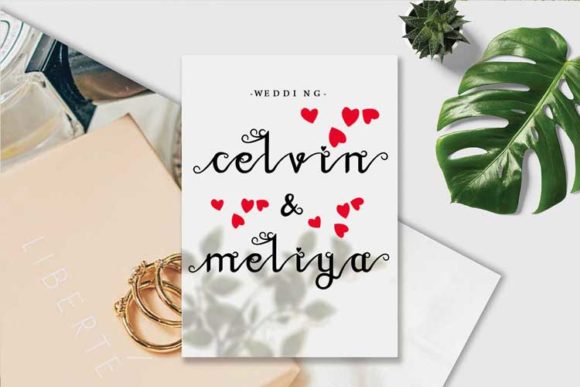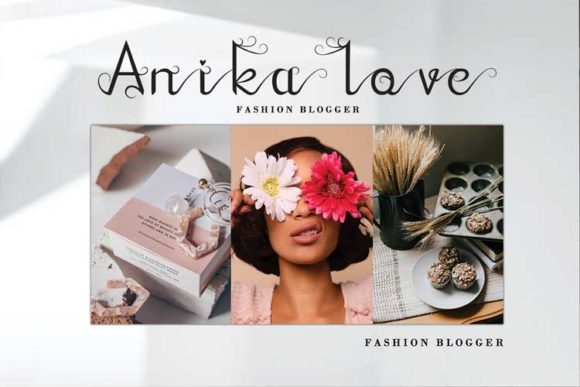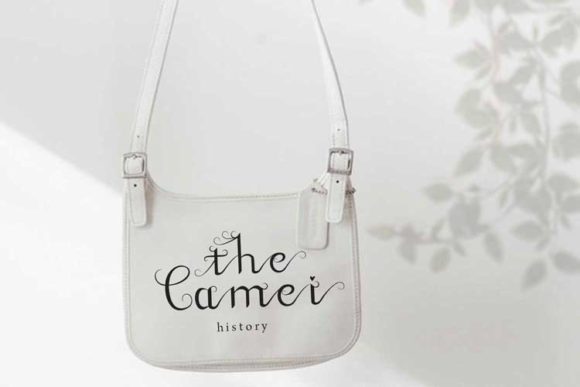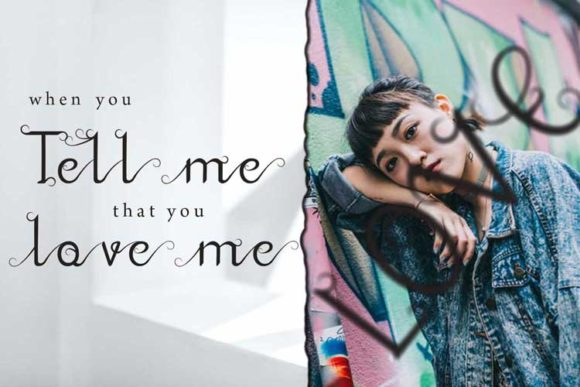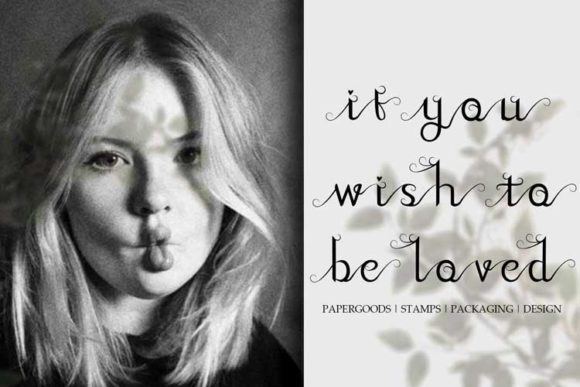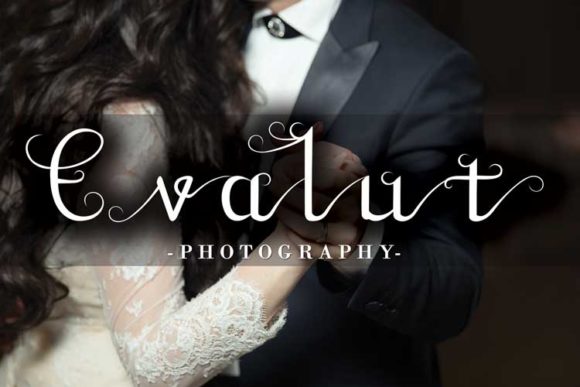
Introducing Alika Font: The Epitome of Modern Script Elegance
In the realm of typography, few fonts manage to strike a balance between classic elegance and modern flair. Alika Font is one such exceptional typeface that embodies the perfect blend of traditional calligraphic influences with a contemporary twist. This beautiful and modern script font is designed to elevate your projects to the highest levels of sophistication and style.
What Makes Alika Font Stand Out?
Alika Font boasts an impressive array of features that set it apart from other script fonts. With its extensive collection of alternative styles, ligatures, swashes, and glyphs, designers and crafters have the tools at their disposal to create truly unique and eye-catching projects. Whether you’re working on a branding campaign, a wedding invitation, or a packaging design, Alika Font provides the versatility and elegance needed to make your work shine.
Classy Calligraphic Influences Meet Modern Sophistication
At the heart of Alika Font lies a deep-rooted connection to traditional calligraphy. The font’s classy influences can be seen in its fluid strokes, elegant letterforms, and the way it seems to dance across the page. However, what truly sets Alika apart is its ability to feel contemporary and fresh, making it an ideal choice for designers looking to infuse their projects with a sense of modernity.
Key Features of Alika Font
- Alternative Styles: Alika Font comes with a variety of alternative styles, allowing designers to experiment with different looks and feels to find the perfect fit for their project.
- Ligatures and Swashes: The inclusion of ligatures and swashes adds a touch of sophistication and elegance, enabling designers to create beautiful, flowing text that captures the eye.
- Glyphs: With a comprehensive set of glyphs, Alika Font offers the flexibility to customize and fine-tune your typography, ensuring that your project stands out from the crowd.
Why Fall in Love with Alika Font?
Alika Font is more than just a typeface; it’s a tool that can transform your creative projects. Its unique blend of traditional and modern elements makes it versatile enough to be used in a wide range of applications, from digital media to print. Here are a few reasons why designers and crafters are falling in love with Alika Font:
- Versatility: Whether you’re designing for luxury brands, crafting invitations, or creating art, Alika Font adapts seamlessly to any project.
- Elegance: Its elegant design ensures that your work exudes sophistication and class, making it perfect for projects where making a good impression is paramount.
- Contemporary Appeal: Alika Font’s modern twist ensures that your designs feel current and relevant, helping you to connect with your audience.
Bring Your Projects to the Highest Levels with Alika Font
In a world where first impressions are everything, having a font that can elevate your project from ordinary to extraordinary is invaluable. Alika Font offers designers and crafters the opportunity to push the boundaries of their creativity, producing work that is not only visually stunning but also deeply engaging.
Whether you’re a seasoned designer looking to refresh your typography arsenal or a crafter seeking the perfect font for your next project, Alika Font is sure to captivate. Its blend of beauty, versatility, and modernity makes it an indispensable tool for anyone looking to make a statement.
In conclusion, Alika Font stands as a testament to the power of typography in design. With its beautiful and modern script, extensive feature set, and elegant calligraphic influences, it’s poised to become a favorite among designers and crafters alike. So, fall in love with Alika Font and discover a world of limitless creative possibilities.